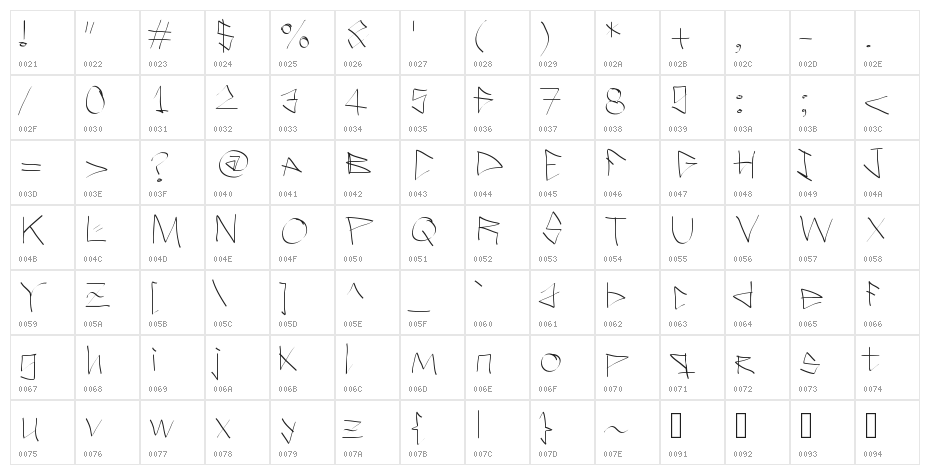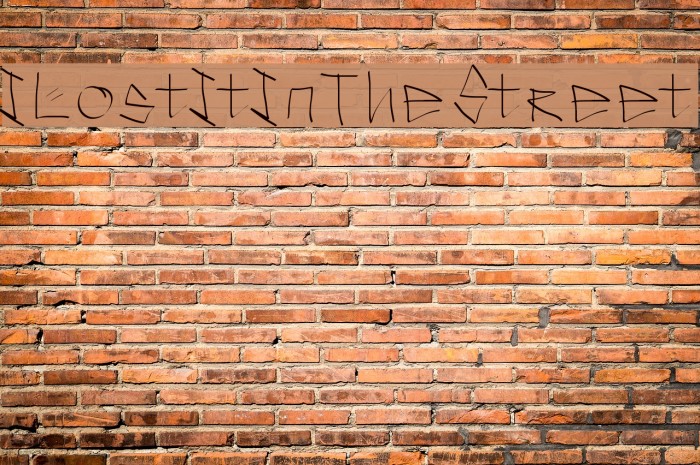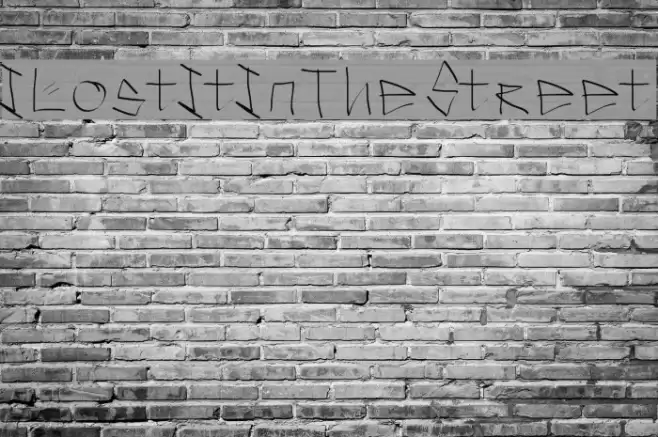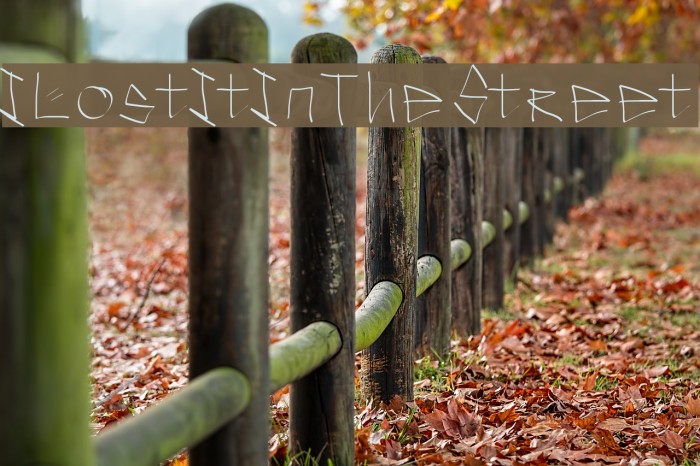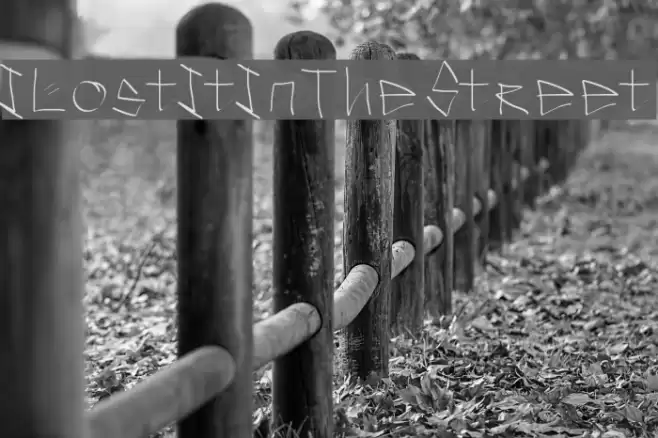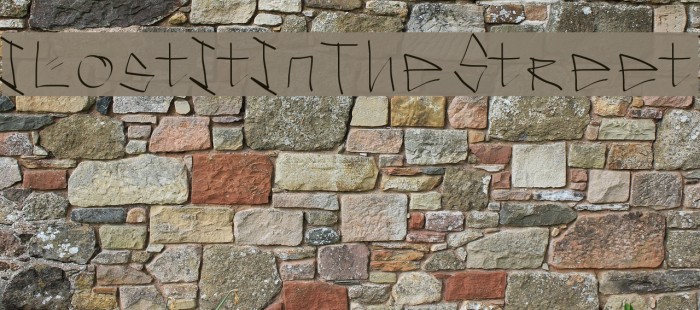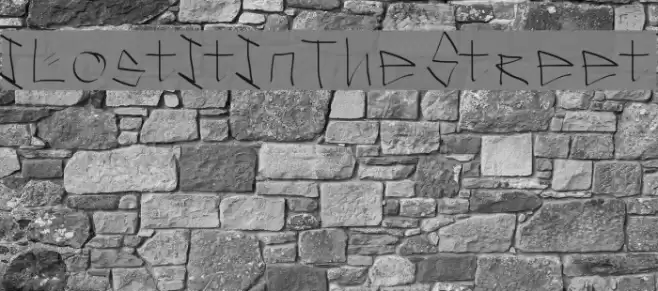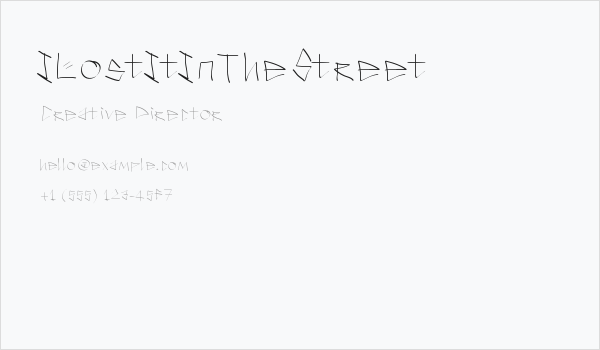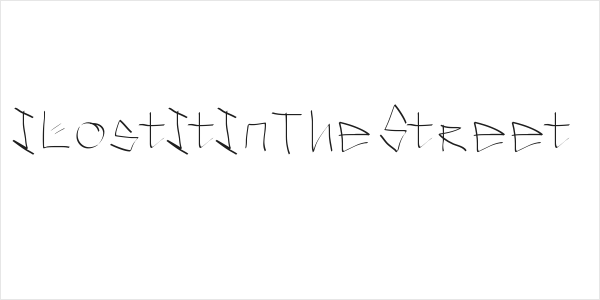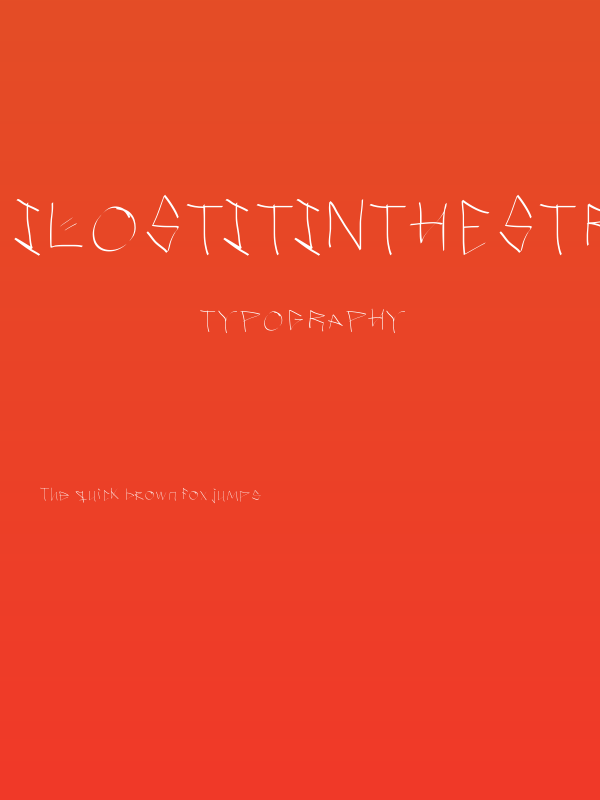
ILostItInTheStreet Font
ILostItInTheStreet Description
This font features a unique, hand-drawn style that mimics the look of graffiti or street art. The letters are irregular and angular, with a rough, sketch-like quality that gives them a dynamic and edgy appearance. The uppercase and lowercase letters maintain a consistent style, with sharp angles and varying line thicknesses that add to the font's raw aesthetic. The numbers and special characters are equally distinctive, with a playful yet rebellious feel. This font is ideal for projects that require a bold, unconventional look.
| Overall Style | Modern, Urban |
| Use Case | Headlines, Posters, Artistic projects |
| Proposed Projects | Perfect for street art-inspired designs, edgy posters, album covers, and urban-themed branding. |